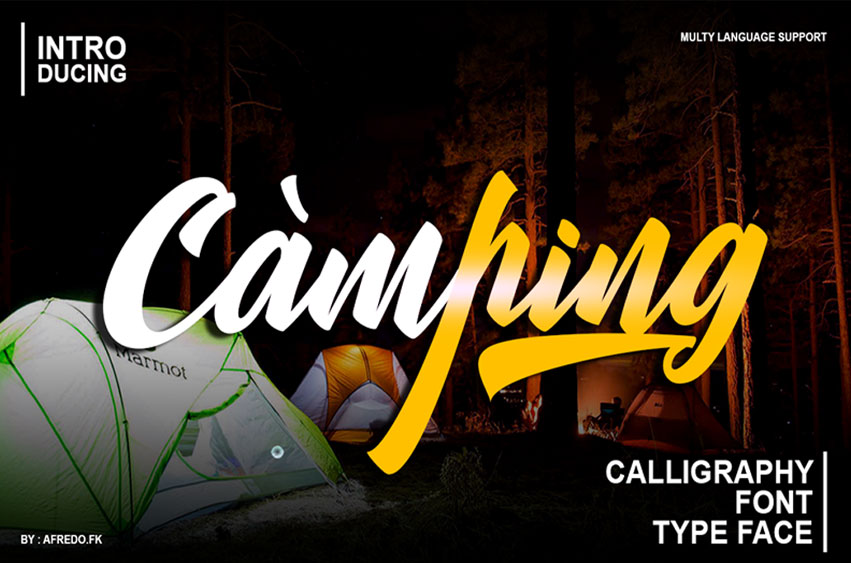
Camping Font is suitable for flyers, posters, novels, letterheads, or any design requirements you want to be awesome.
It will certainly amaze your readers.